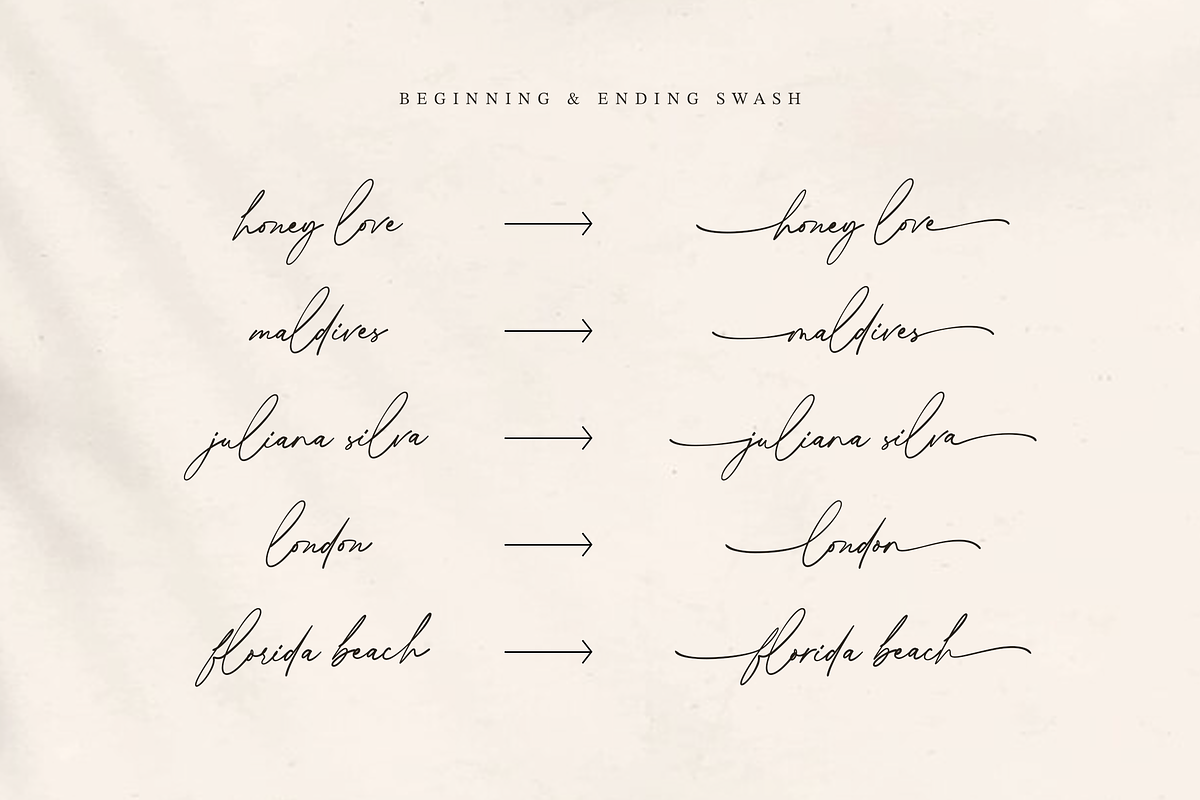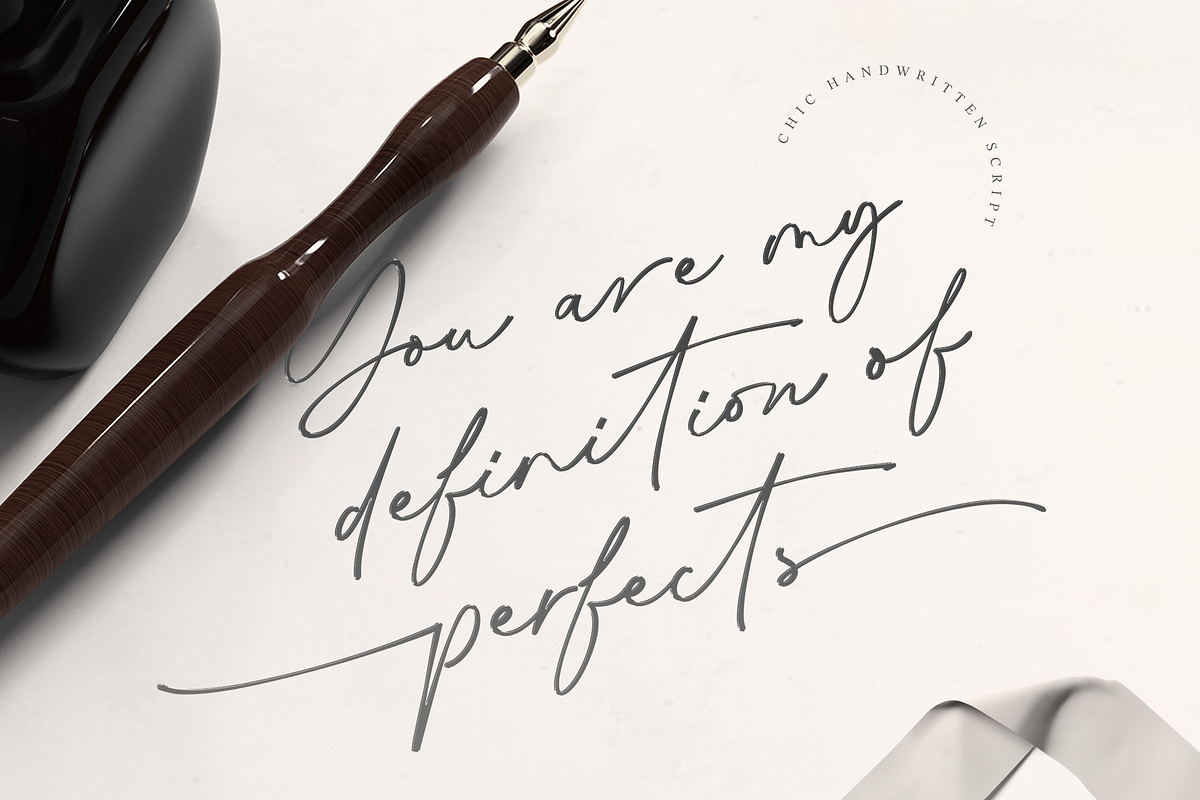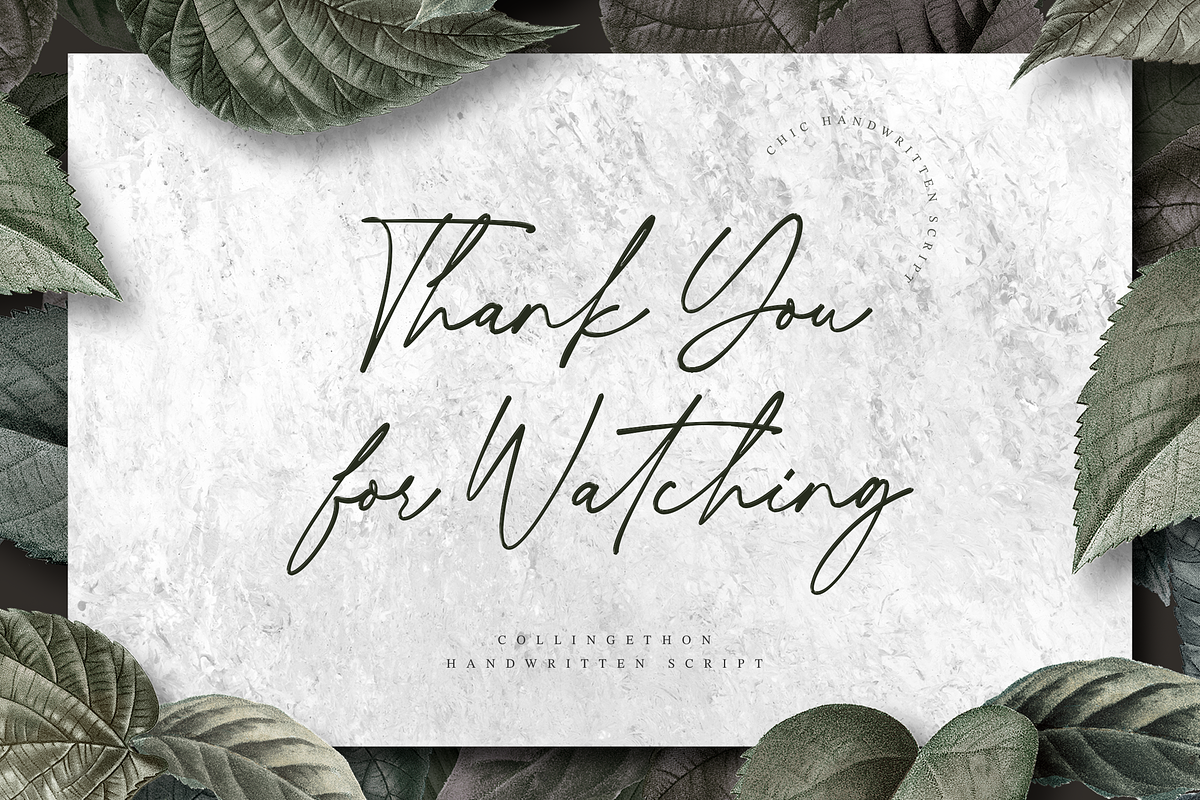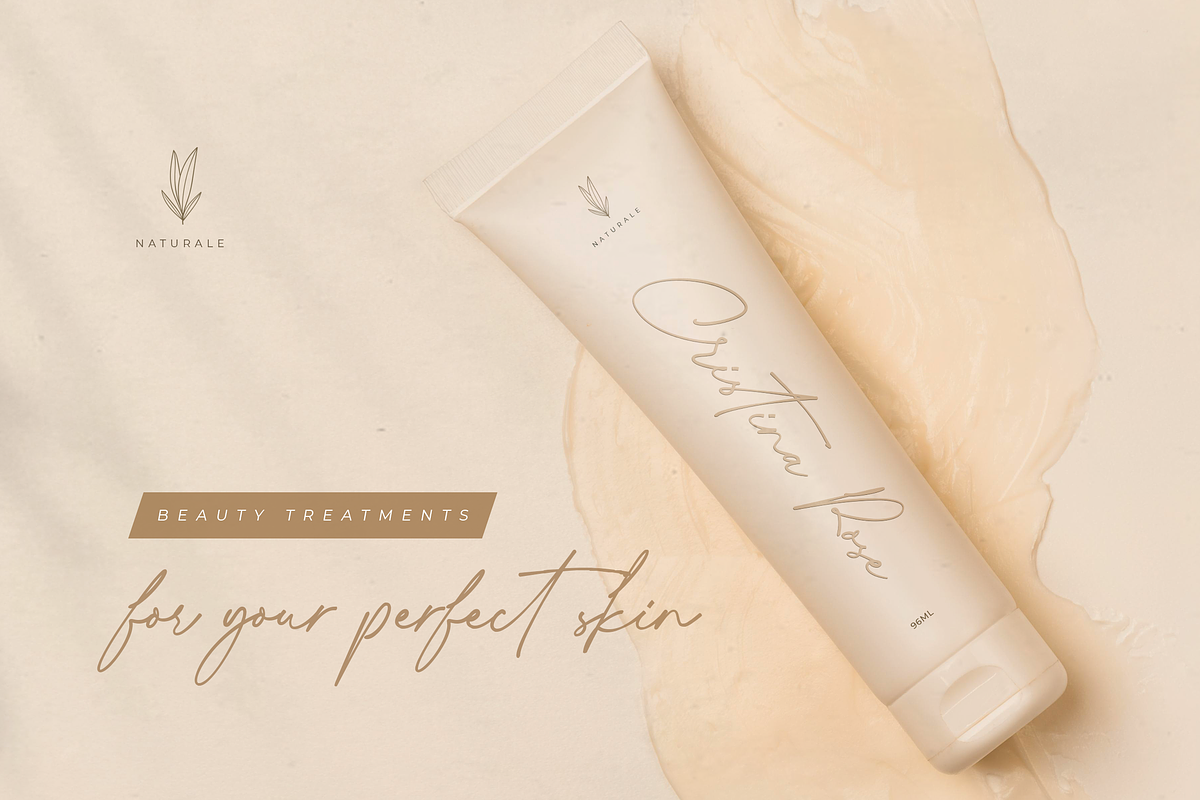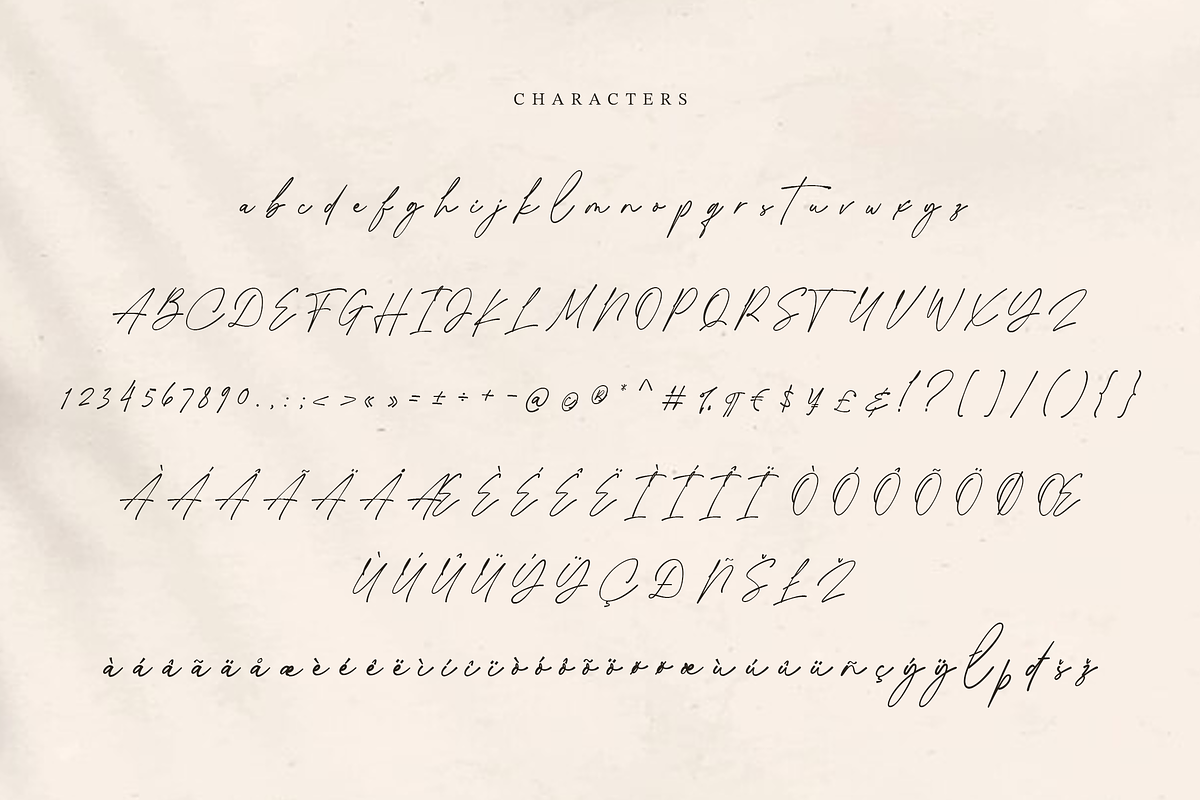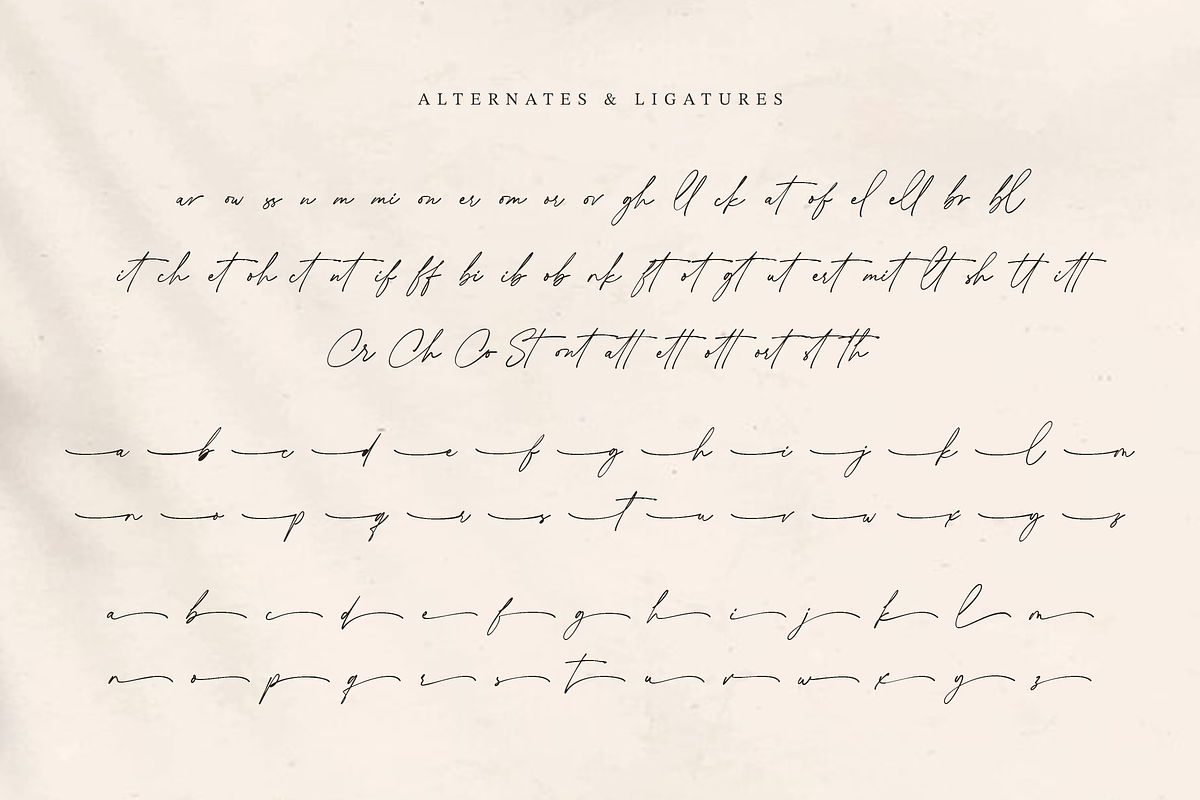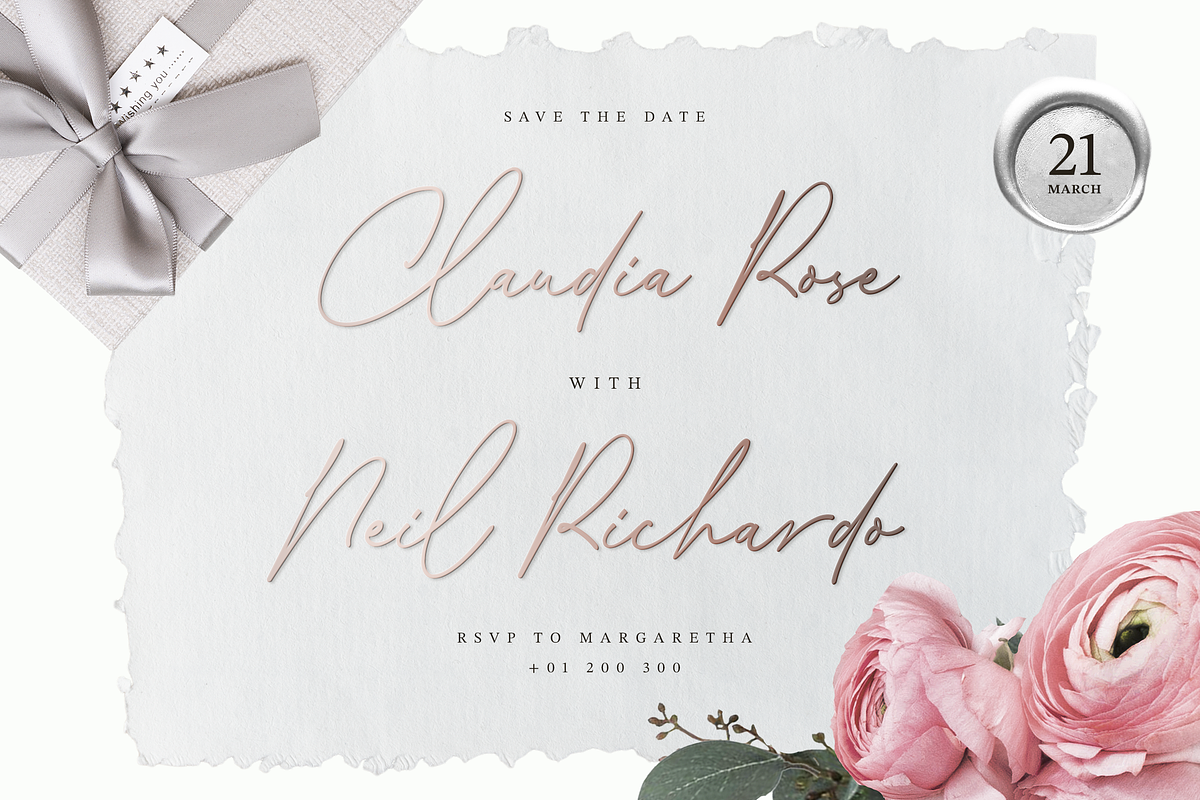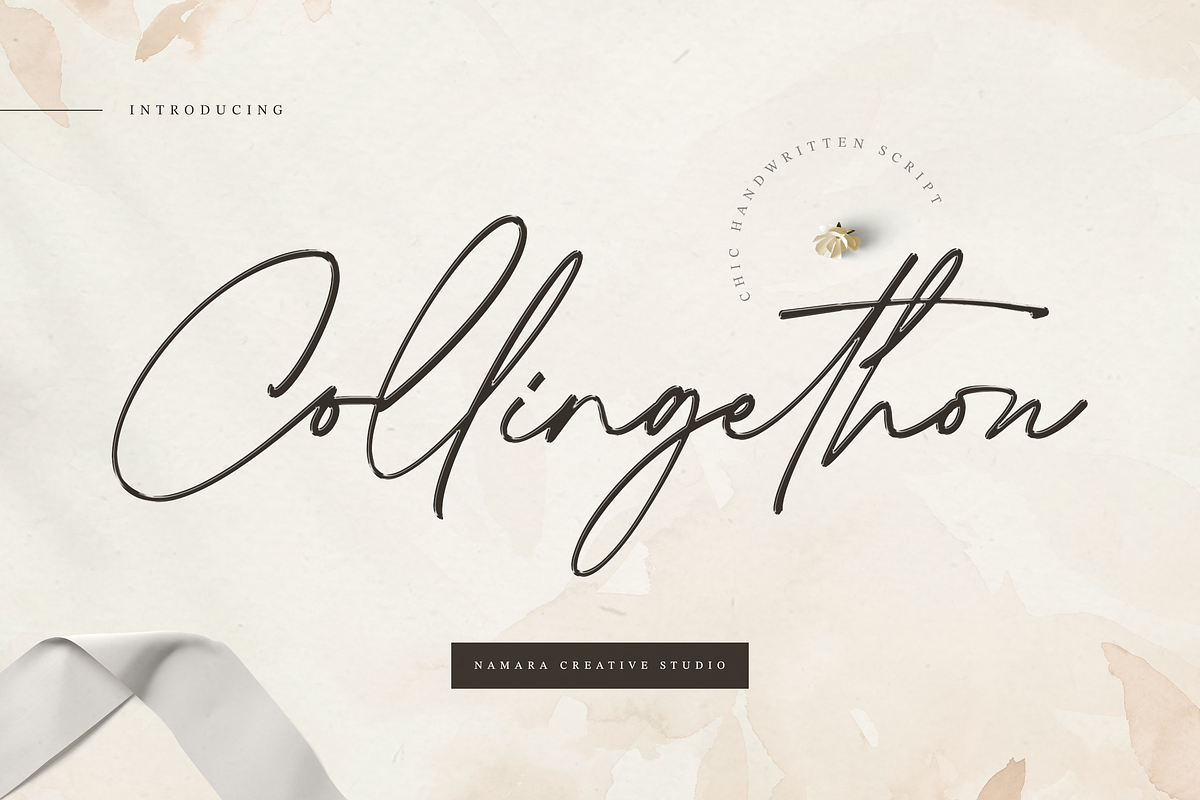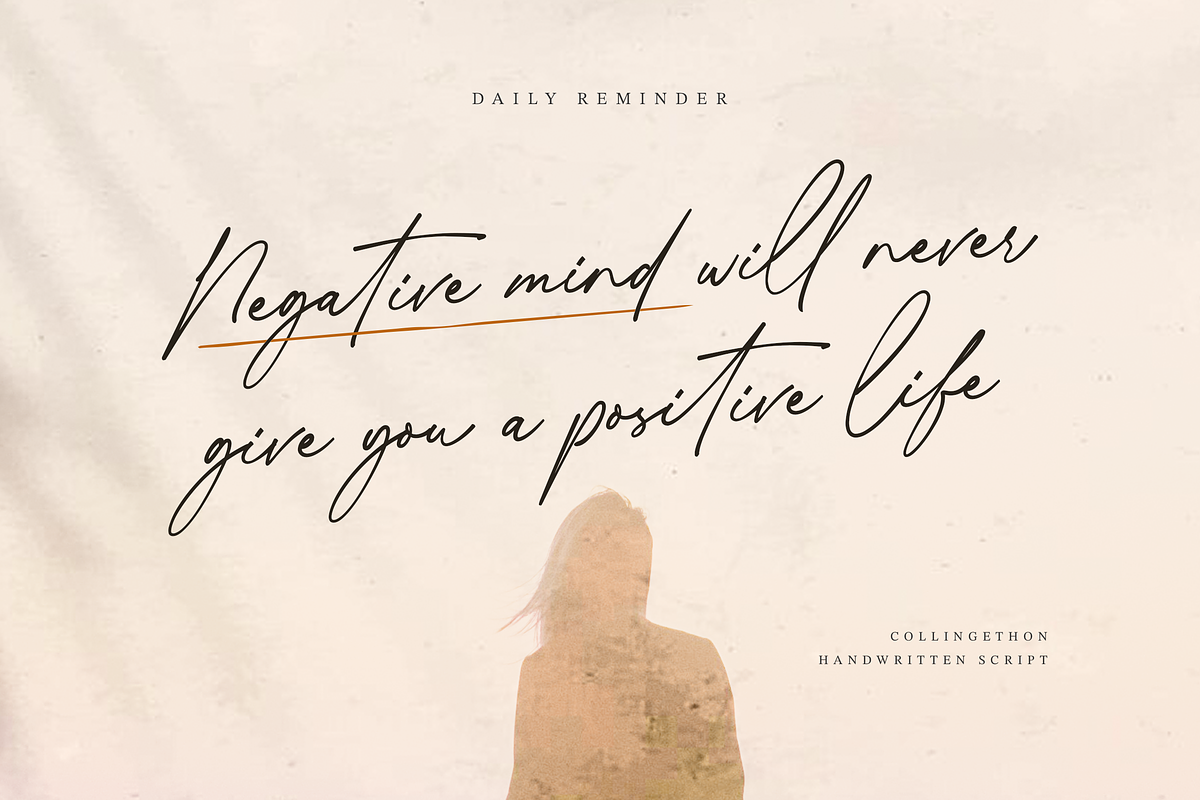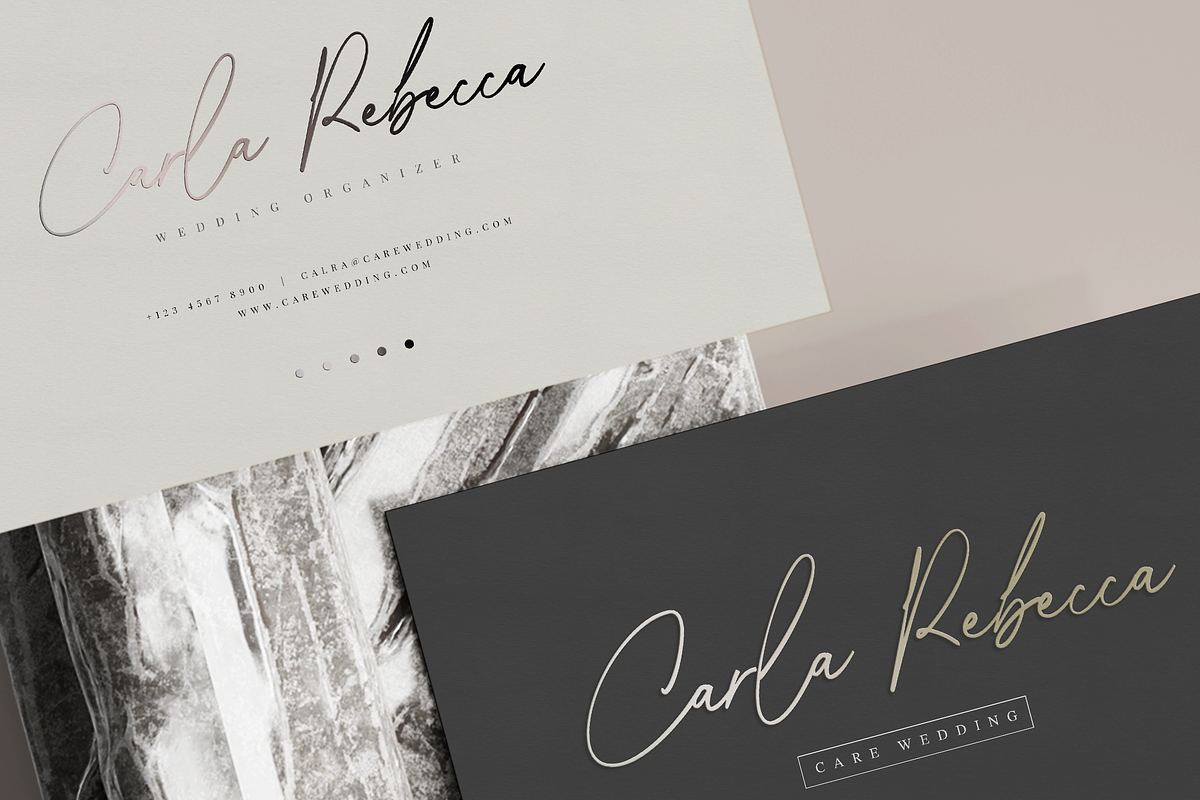
Collingethon Chic Handwritten Script
Collingethon is chic handwritten script font with a calligraphy flair, Perfect for creating handwritten-style logos, wedding stationery, photographer watermarks logos, modern websites, and more. For those of you who are needing a touch of elegant, chic and modernity for your designs, this font was created for you!
- Full Set of standard alphabet and punctuation.
- Beginning and ending swashed lowercase.
- Alternates, ligatures and multilingual characters.